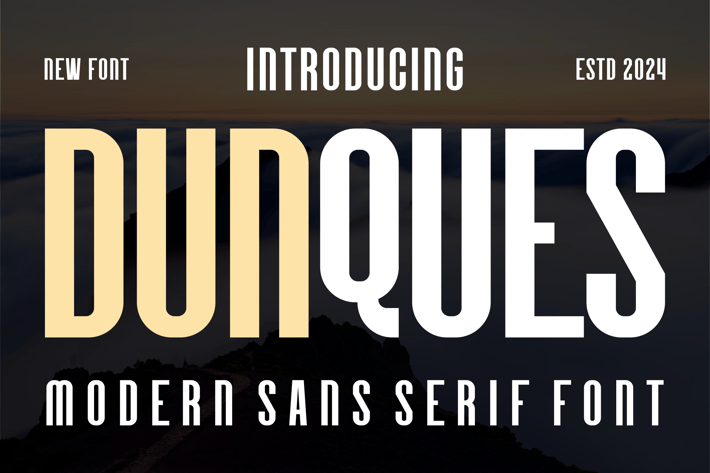
Dunques - Modern Sans Serif Font
Introducing our new product Dunques Font Modern Sans Serif Font
Dunques Font Modern Font is a bold and authentic display font. The font is suitable for any branding project like logo, t-shirt printing, esport, and many more.
outstanding in a wide range of contexts.
Dunques Uppercase